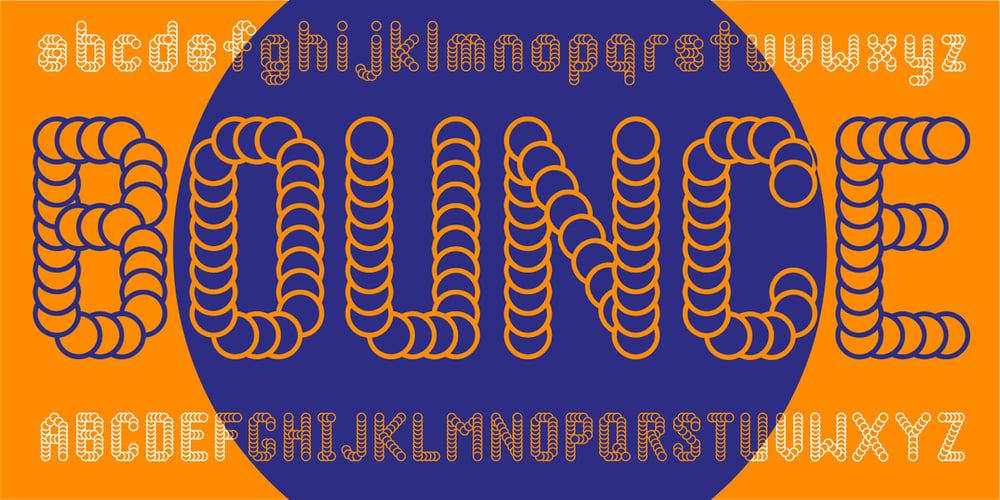
Bounce Font Family was designed by John Power and published by Powerfonts. Bounce contains 1 styles and family package options. Bounce is a unique and dynamic font inspired by molecular structures. Ideal for large format use in medical, science and technology projects.